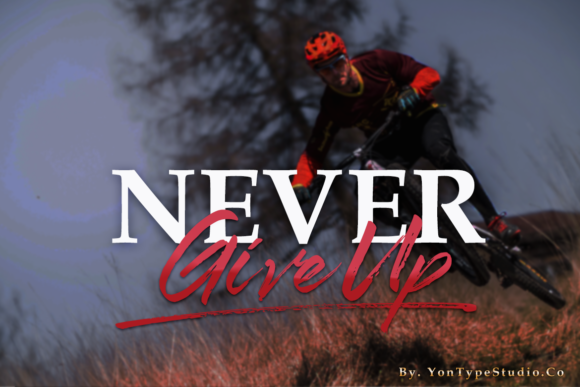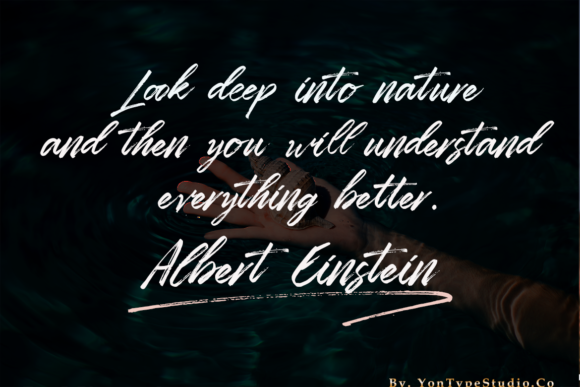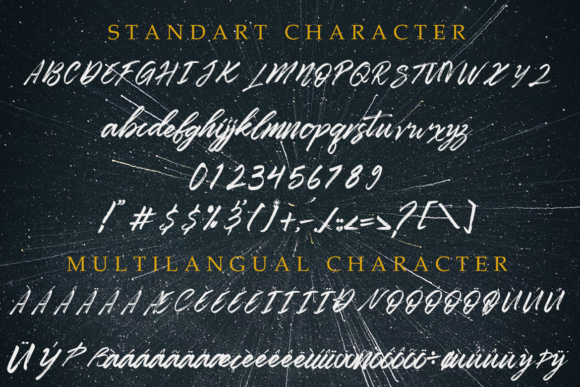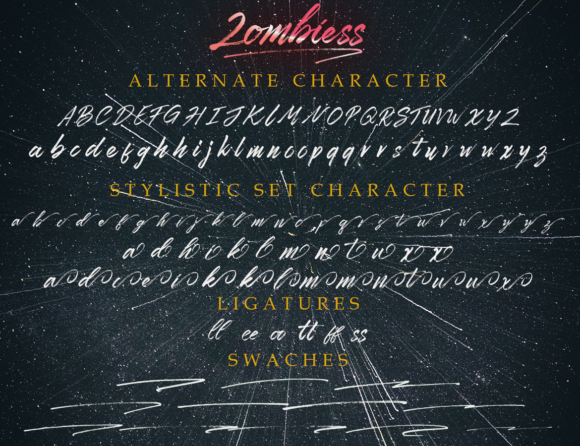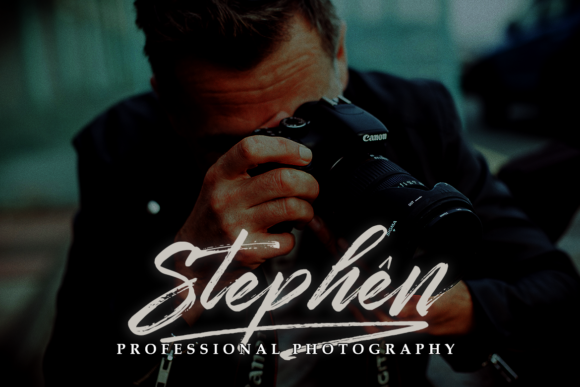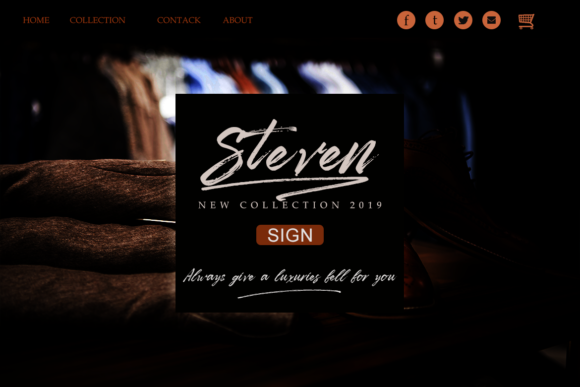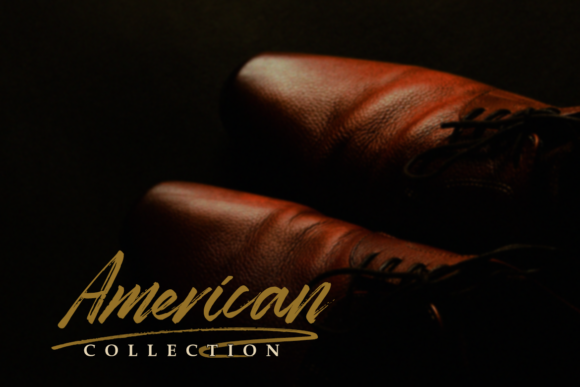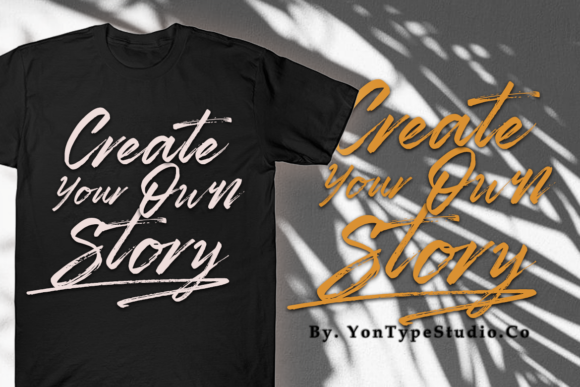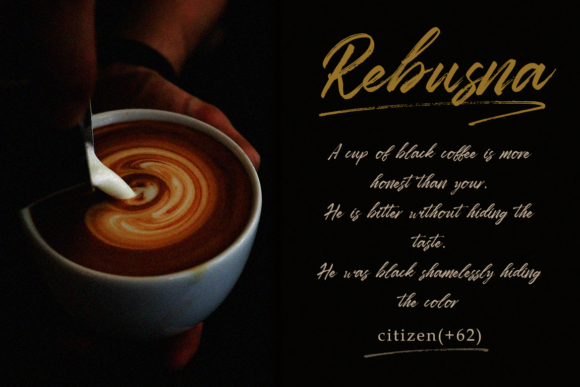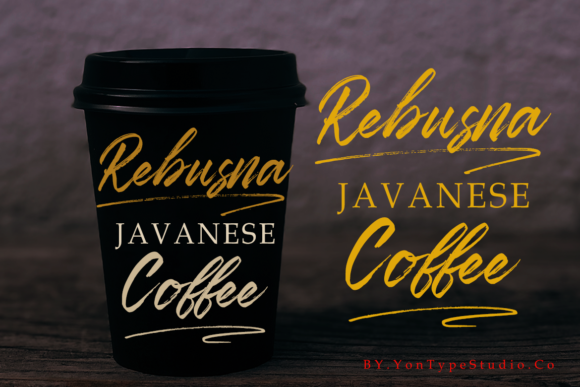
HomeScript FontsZombiess Font Script Fonts Zombiess Font FacebookXPinterestWhatsApp Zombiess Font Poster 2 Zombiess Font Poster 3 Zombiess Font Poster 4 Zombiess Font Poster 5 Zombiess Font Poster 6 Zombiess Font Poster 7 Zombiess Font Poster 8 Zombiess Font Poster 9 Zombiess Font Poster 10 Zombiess Font Poster 11 Zombiess Font Poster 12 Zombiess Font Poster 13 Zombiess Font Poster 14 About Zombiess Font Zombiess is a powerful and rough font with a raw feel. It will add an adventurous look to any design project! DOWNLOAD ON CREATIVE FABRICAThis font is sold and delivered by Creative Fabrica. Font Canyon may earn a commission if you buy through this link. People also explored Thanksgiving Font Sweet Handwrite Font Wyattruly Font Olivia Script Font Spooky Journey Font Gaura Font Daisy Story Font Almond Western Font Jewels Font 398 0 TagsZombiess Font Previous articleLaurance FontNext articleDellphia Font LEAVE A REPLY Cancel reply Comment: Please enter your comment! Name:* Please enter your name here Email:* You have entered an incorrect email address! Please enter your email address here Website: Save my name, email, and website in this browser for the next time I comment. Personal Use Free Gardening Personal Use Free Read more about this font Winner Personal Use Free Read more about this font Elevate Your Halloween Designs with 500 Free High-Quality PNG Clipart Files Personal Use Free Read more about this font Engebrechtre Personal Use Free Read more about this font BLOG The 10 Best Handwriting Fonts to Add Personality to Your Designs 10 of the Best Handwriting Fonts for Adding Personality to Your Designs There will undoubtedly be no other better choice than handwriting fonts to give... To increase your work productivity, choose the most readable fonts. 5 Fonts That Will Dominate Design Trends in 2026 How to Cut Any Font on Cricut: Convert a Font to SVG (Free)